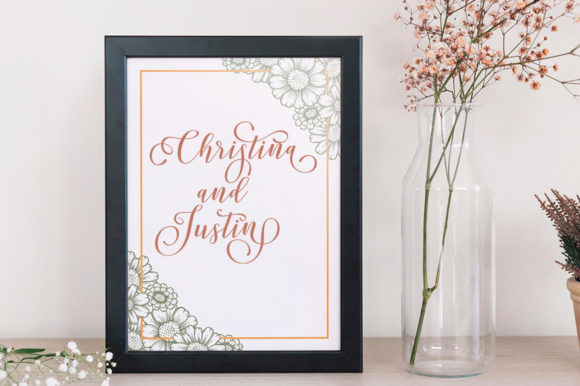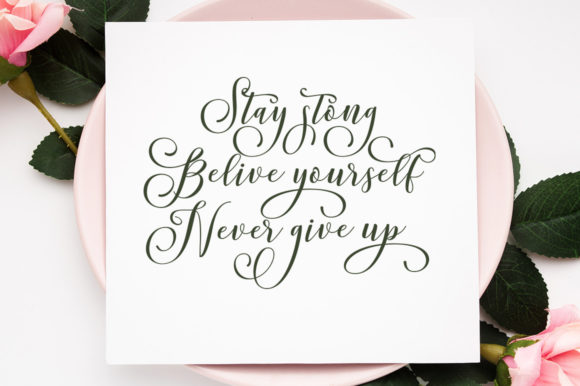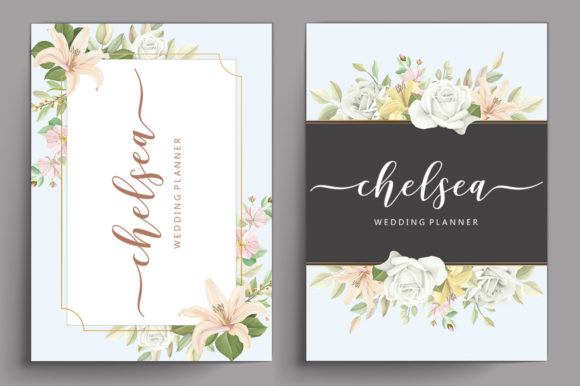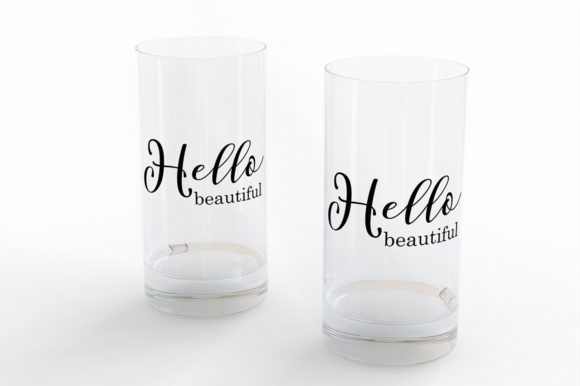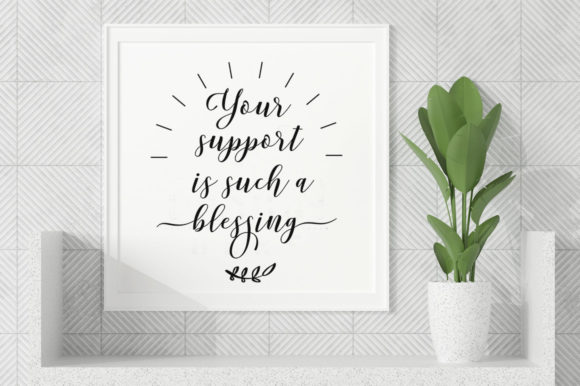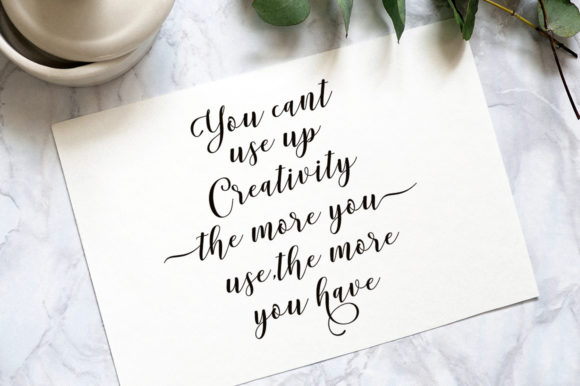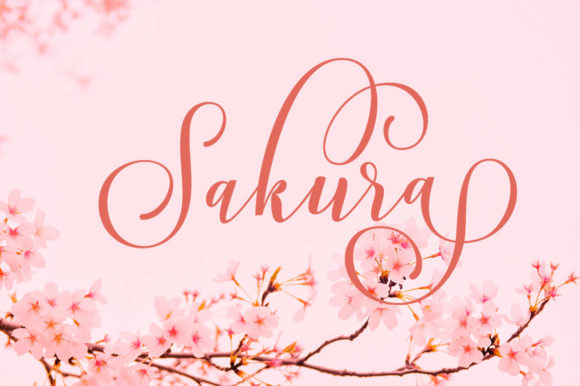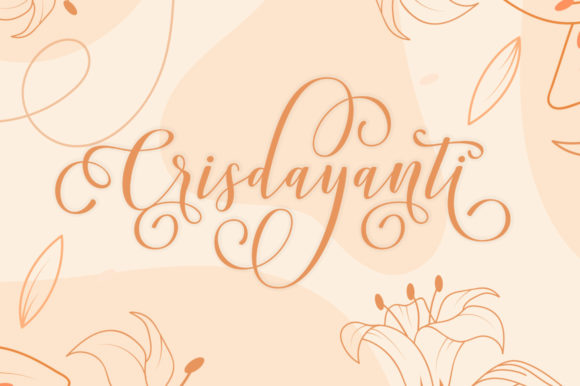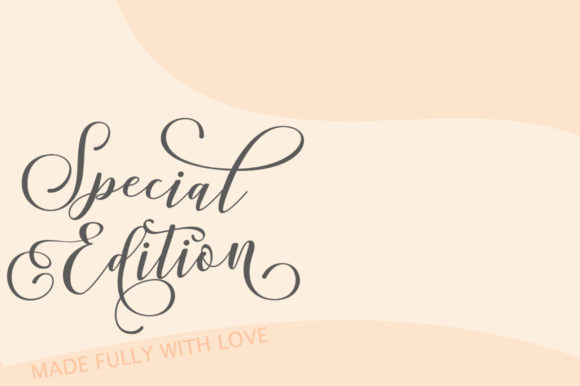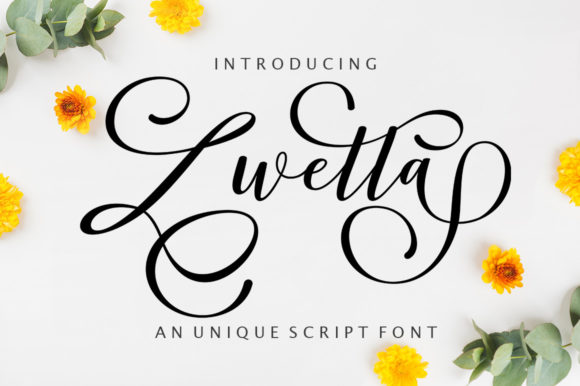
Zwetta Script Font
About Zwetta Script Font
Zwetta Script is a stylish and incredibly elegant script font. It is PUA encoded which means you can access all of the glyphs and swashes with ease!